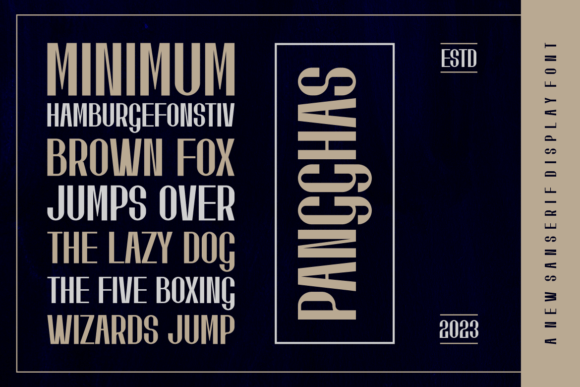
Pangghas Font: Elevate Your Brand with a Modern and Bold Display Font
In the world of typography, a font can make or break a brand’s identity. A well-designed font can elevate a brand’s visual appeal, convey its message, and leave a lasting impression on its audience. Introducing Pangghas Font, a modern and bold display font that is poised to revolutionize the way you approach branding. In this article, we’ll delve into the features, benefits, and uses of Pangghas Font, and explore how it can help take your brand to the next level.
What is Pangghas Font?
Pangghas Font is a bold and authentic display font designed to make a statement. Its modern and sleek design makes it perfect for a wide range of branding projects, from logos and esports to advertising and marketing materials. The font’s unique character and style set it apart from other fonts, making it an excellent choice for brands looking to stand out in a crowded market.
Key Features of Pangghas Font
- Bold and Authentic Design: Pangghas Font boasts a bold and authentic design that is sure to grab attention.
- Modern and Sleek: The font’s modern and sleek design makes it perfect for brands looking to convey a sense of sophistication and elegance.
- Versatile: Pangghas Font is suitable for a wide range of branding projects, from logos and esports to advertising and marketing materials.
- Uppercase: Pangghas Font features uppercase letters, making it perfect for titles, headings, and emphasis.
Benefits of Using Pangghas Font
So, why choose Pangghas Font for your branding needs? Here are just a few benefits of using this modern and bold display font:
- Stand Out in a Crowded Market: With Pangghas Font, you can create a unique and memorable brand identity that sets you apart from the competition.
- Convey Confidence and Sophistication: The font’s bold and modern design conveys confidence and sophistication, making it perfect for brands looking to elevate their visual appeal.
- Increase Legibility: Pangghas Font is designed to be highly legible, even at small sizes, making it perfect for use in a wide range of contexts.
Uses of Pangghas Font
Pangghas Font is a versatile font that can be used in a wide range of branding projects, including:
- Logo Design: Create a bold and memorable logo that sets your brand apart.
- Esports: Use Pangghas Font to create a professional and competitive esports brand identity.
- Advertising and Marketing: Elevate your advertising and marketing materials with a modern and bold font.
- Packaging Design: Use Pangghas Font to create eye-catching packaging that stands out on store shelves.
In conclusion, Pangghas Font is a modern and bold display font that is poised to revolutionize the way you approach branding. With its unique character, versatile design, and multi-format support, this font is perfect for a wide range of branding projects. Whether you’re looking to create a bold and memorable logo, elevate your esports brand, or simply add a touch of sophistication to your advertising and marketing materials, Pangghas Font is the perfect choice.